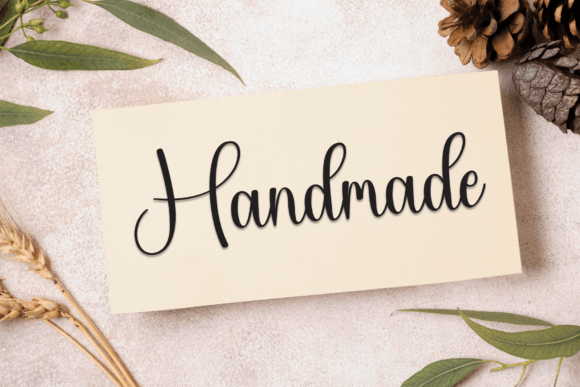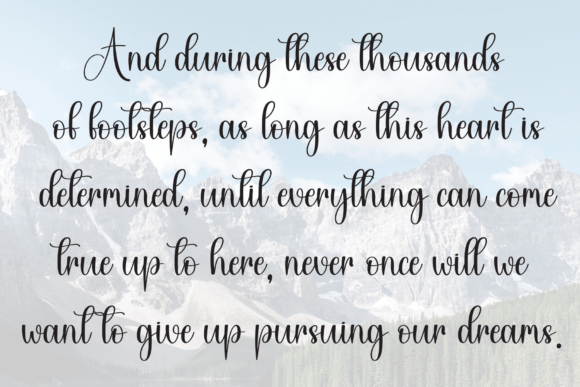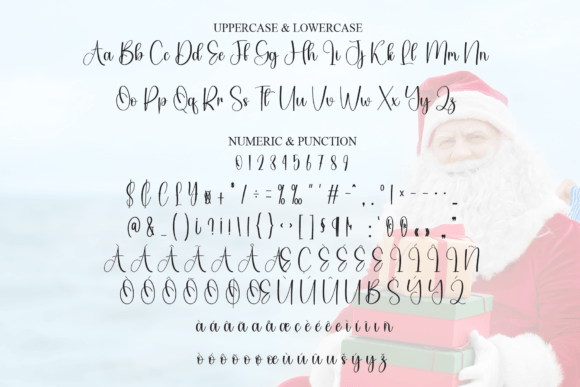
Introduction to Santa Holiday Font Font
Fonts play a crucial role in design, and the Santa Holiday Font font is a typeface that brings both character and versatility to any project. Whether you’re working on a branding project, a website, or a print design, the Santa Holiday Font font offers a unique style that can elevate your work.
Santa Holiday is a lovely handwritten script font that feels elegant and playful.
Its flowing, smooth lines give it a personal and artistic touch, perfect for creating beautiful designs like cards, logos, or invitations .
Key Features of Santa Holiday Font Font
Why Choose Santa Holiday Font Font?
The Santa Holiday Font font is more than just a typeface – it’s a design tool that helps you communicate your message with style and clarity. Its unique character set and versatile design make it suitable for a wide range of applications, from elegant invitations to bold headlines.
With its carefully crafted letterforms and balanced proportions, the Santa Holiday Font font ensures readability and visual appeal across all mediums.
What makes Santa Holiday Font font special?
The Santa Holiday Font font stands out with its unique design, exceptional readability, and versatility across various design applications.